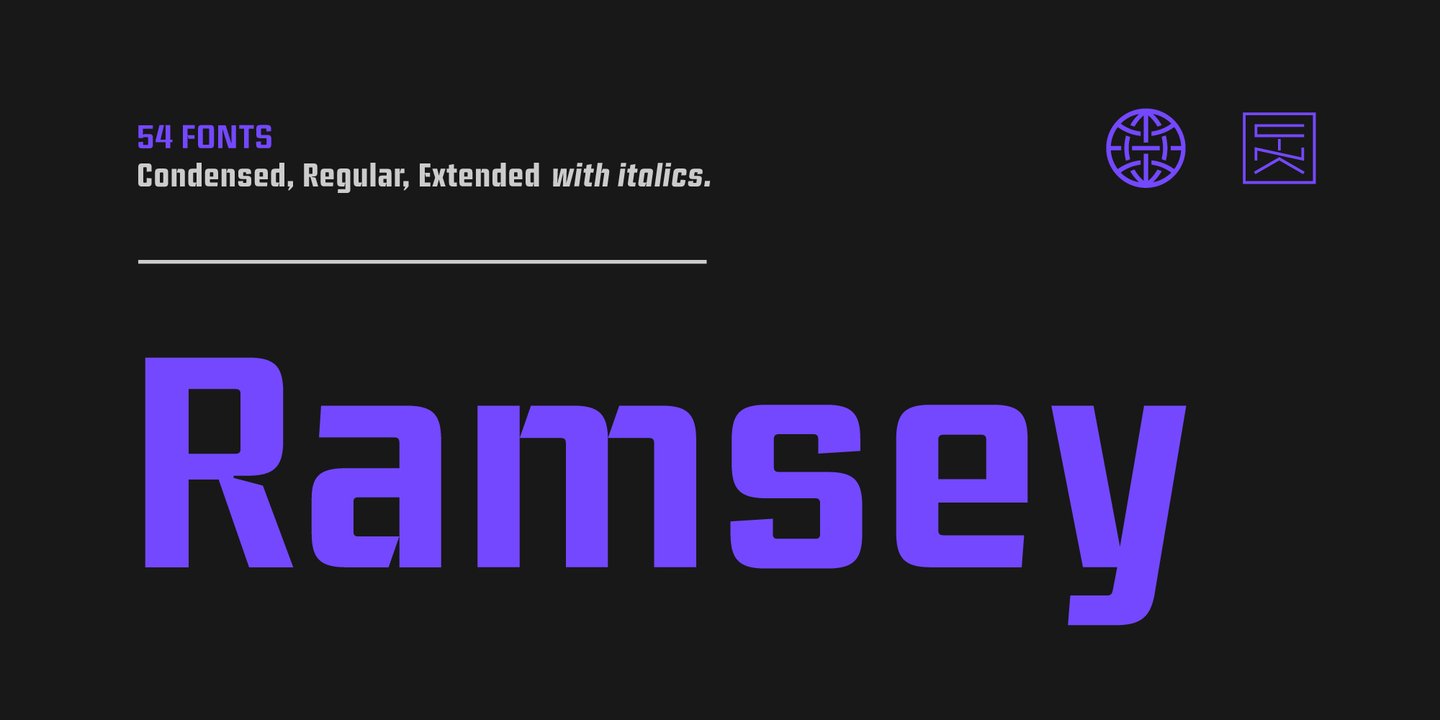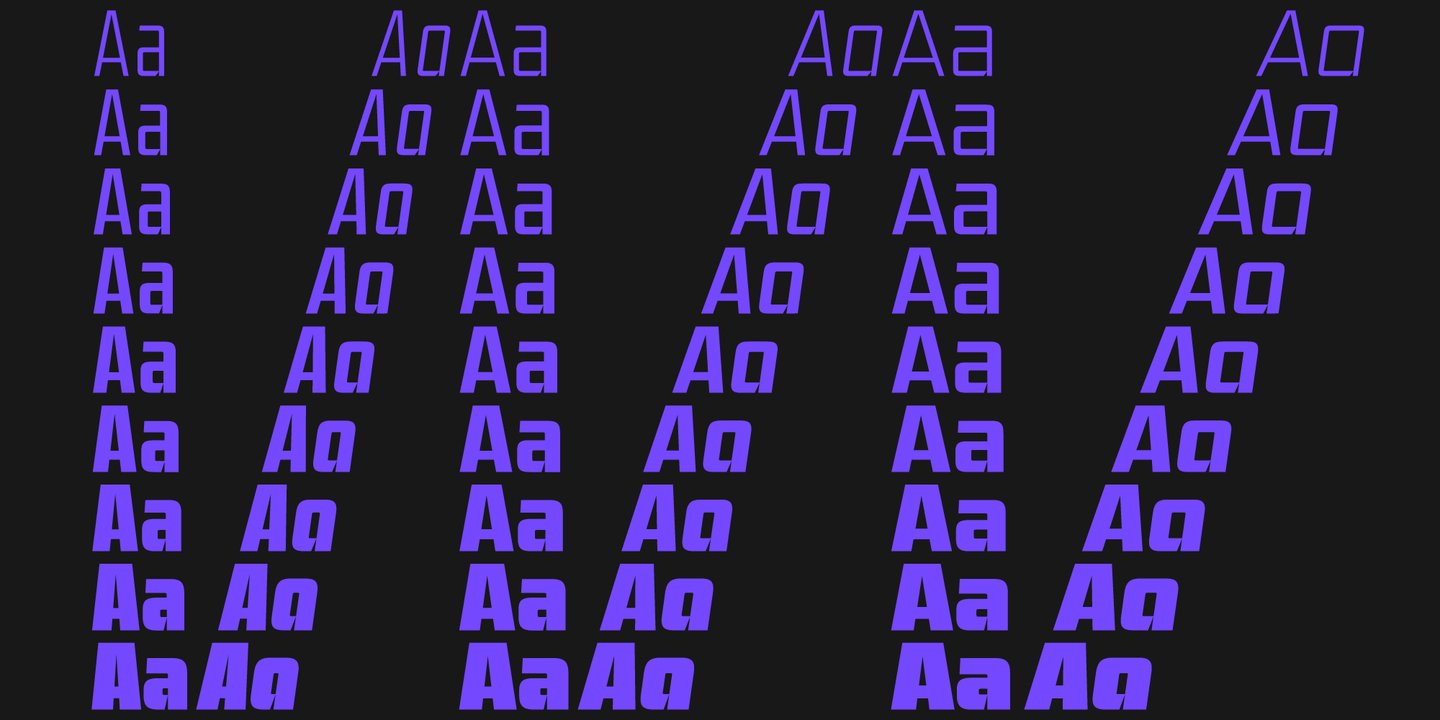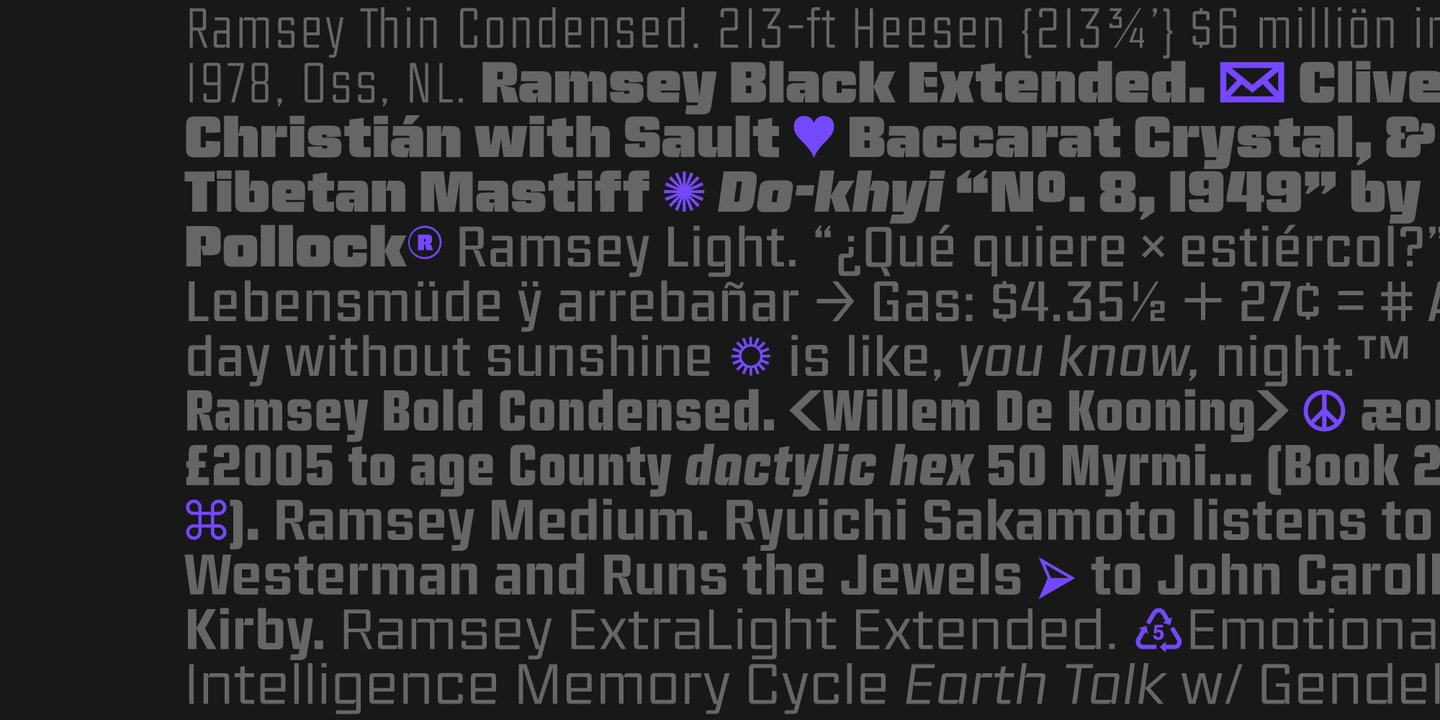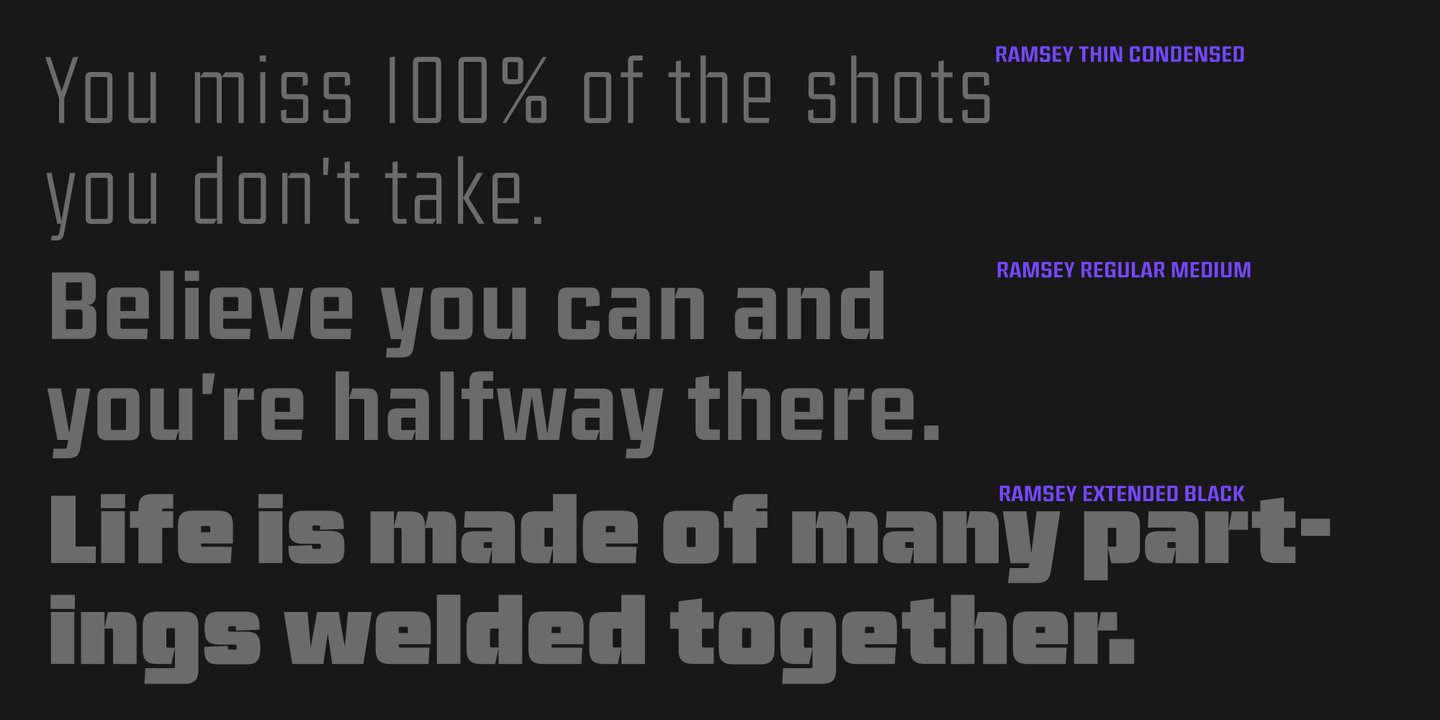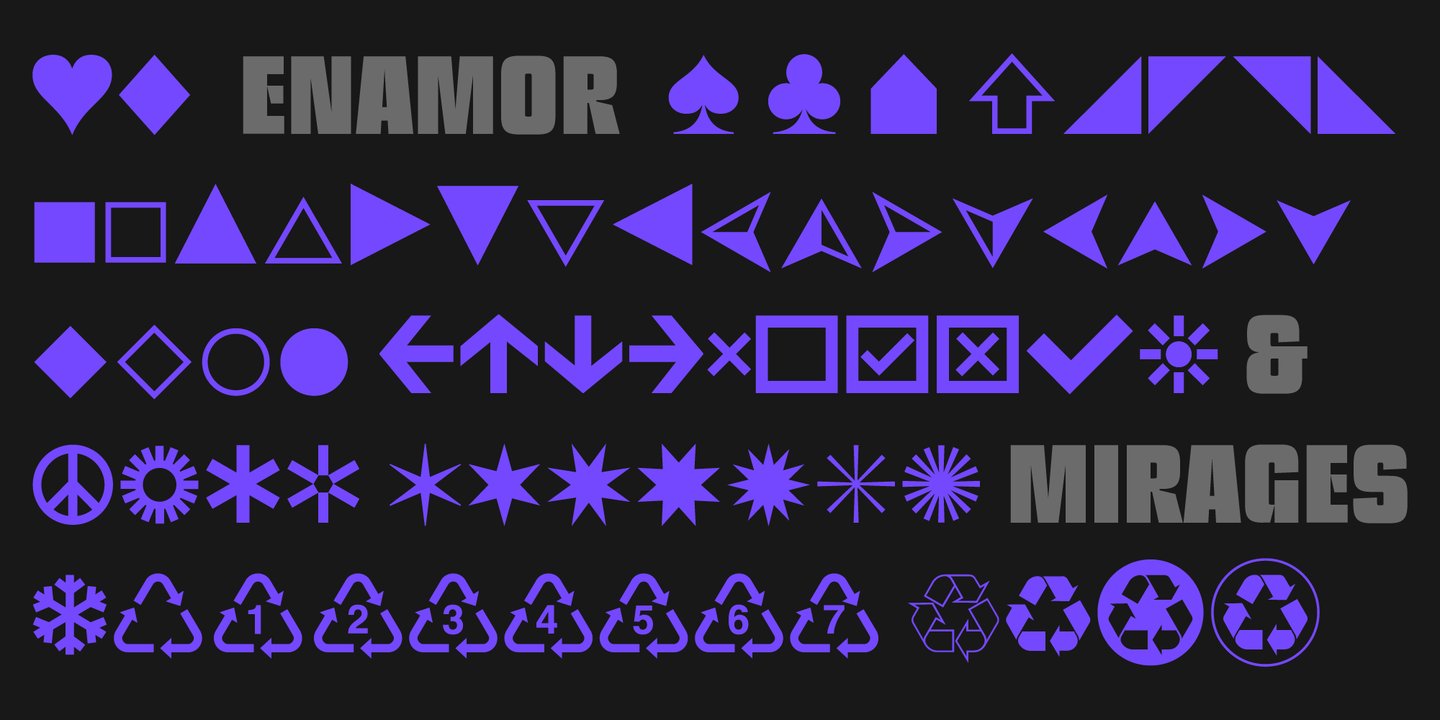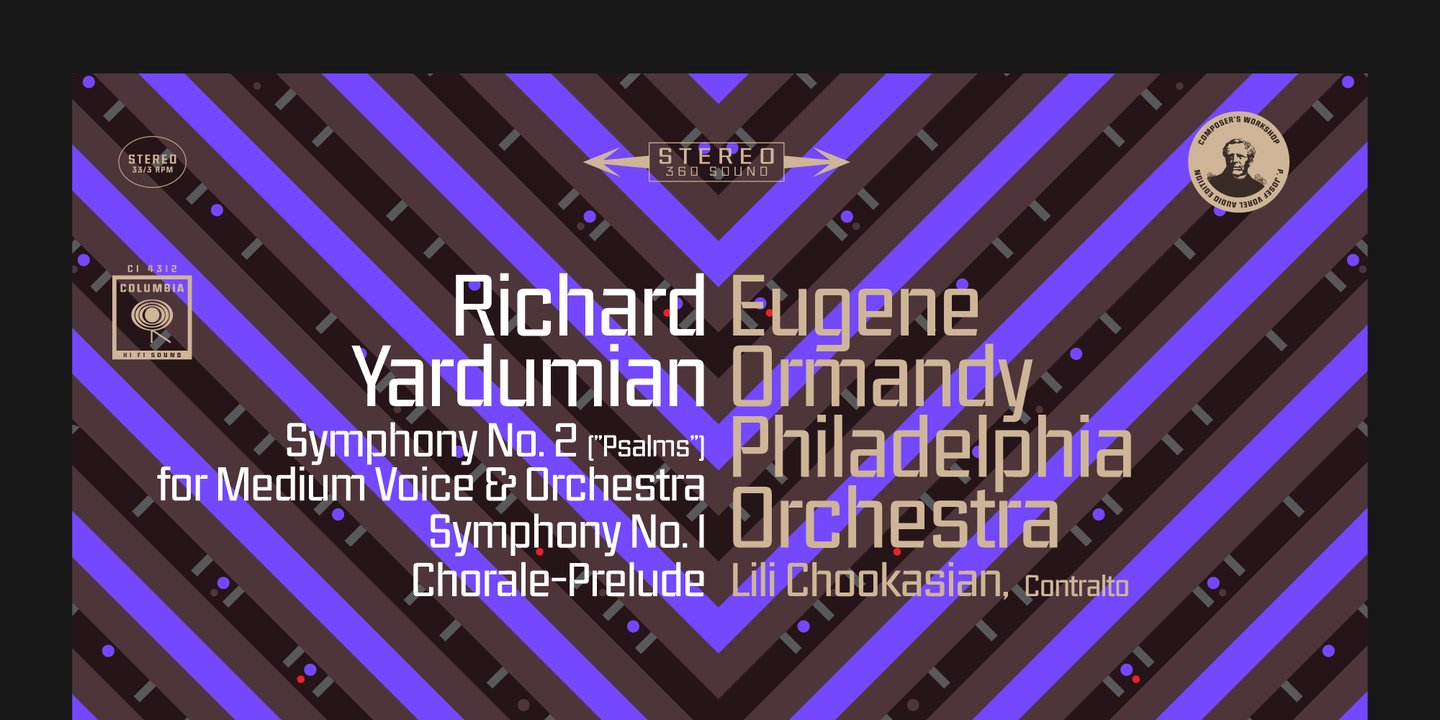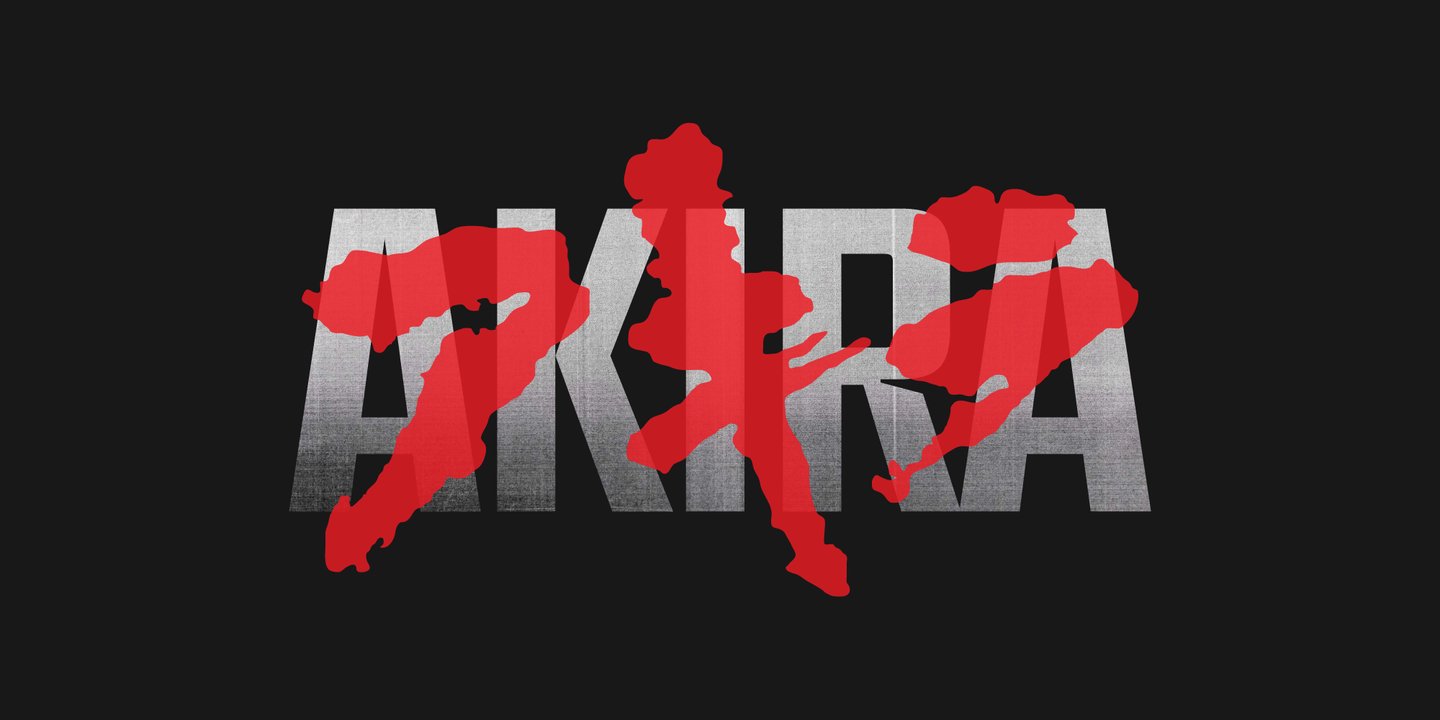
Ramsey is stout and warm, rectangular with rounded edges, and dynamic with swift cuts. Ranging from thin and condensed to extended and black, Ramsey has seen applications in sports teams to movie titles and even art magazines. Through the years, Ramsey has proven itself to be a true workhorse of a font. This version has a lot of minor updates to the form and spacing, and we now see an extended family to complete it’s legacy. A true workhorse.